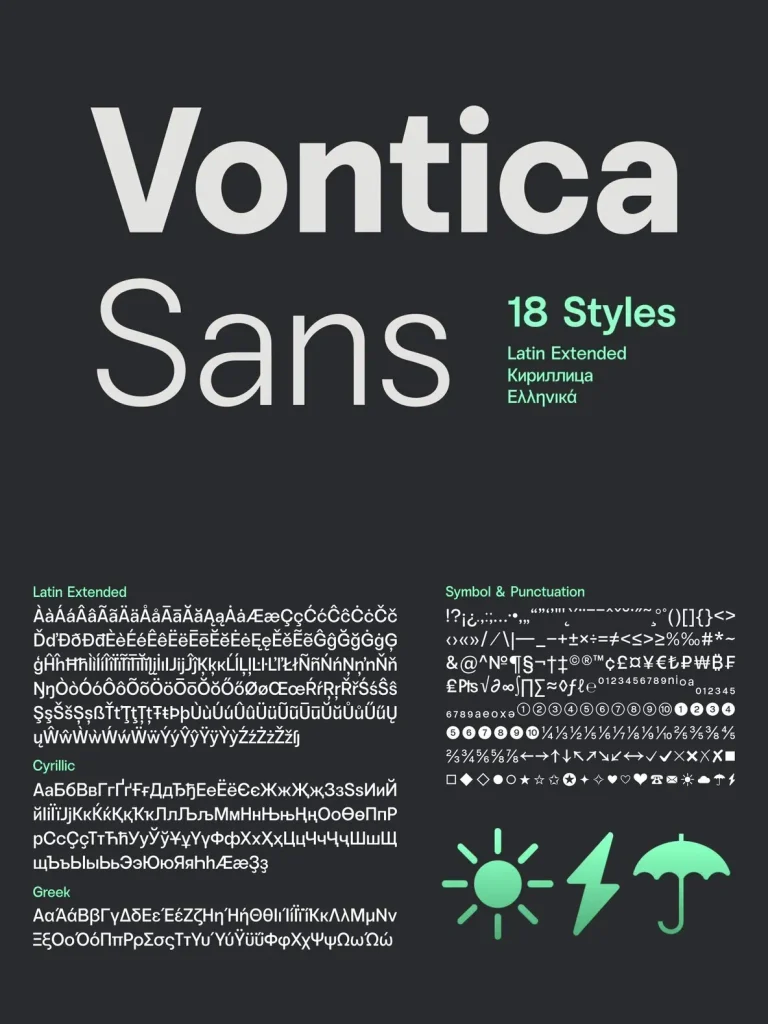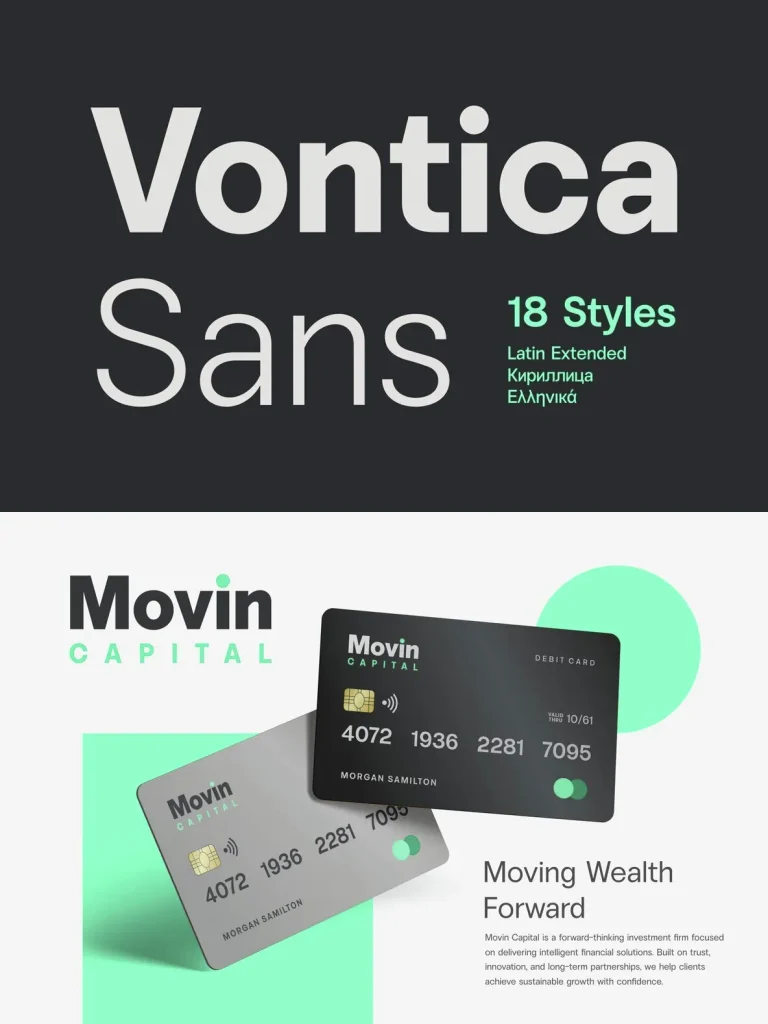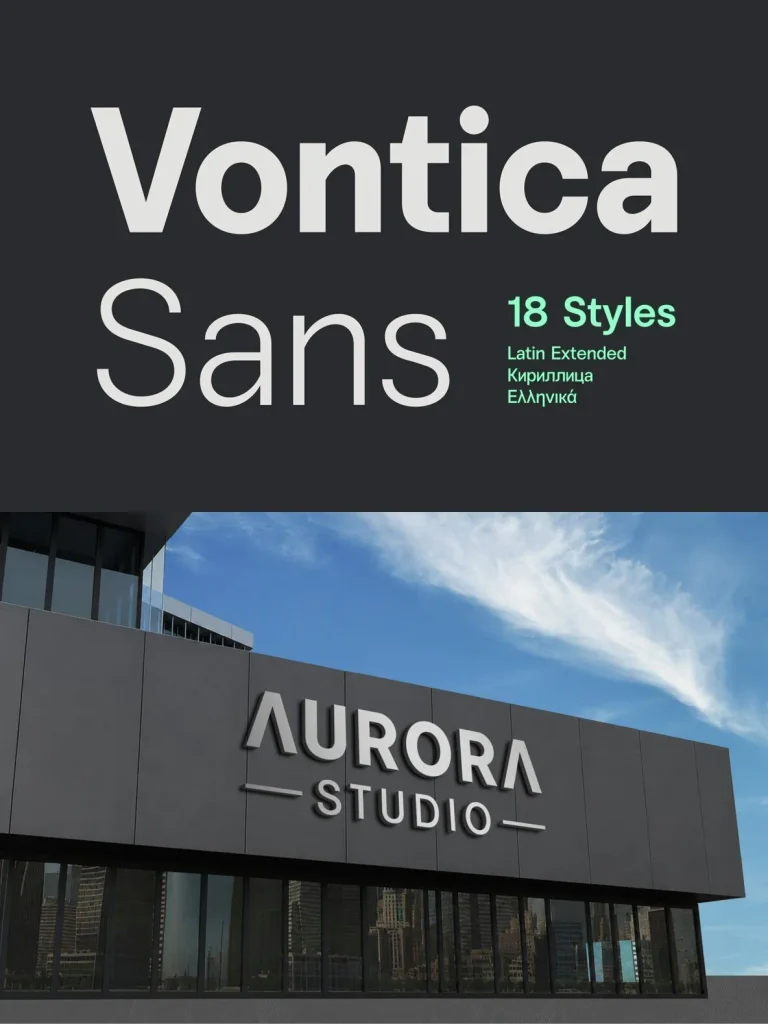
Vontica Sans — Clarity With Range
Vontica Sans is a contemporary sans serif typeface designed for clarity, versatility, and modern visual communication. Its clean structure and carefully drawn letterforms give it a confident voice across both display and text settings, with excellent readability at large sizes and smaller text use.
The family includes 18 styles, from Thin to Black with matching italics. This range gives designers practical control for bold headlines, branding, user interfaces, editorial layouts, logos, websites, packaging, advertising, and corporate communications. Vontica Sans suits projects that need a professional, balanced, and adaptable sans serif system.
Features
18 Styles (Thin to Black + Italics)
Latin Extended Support
Cyrillic Support
Greek Support
Multiple Language Supported
Advanced OpenType features
Stylistic Alternates & Stylistic Set 01-02
Ligatures & Discretionary Ligatures
Figures (Lining, Oldstyle, Tabular & Proportional)
Fractions
Numerators & Denominators
Superscript & Subscript
Case Sensitive Forms
Ordinals
Symbol & Punctuation
Refined Kerning & Balanced Spacing
Contemporary Sans Serif
Excellent Readability
Professional & Versatile Design